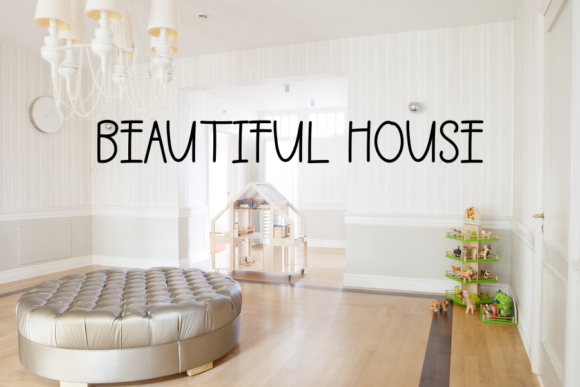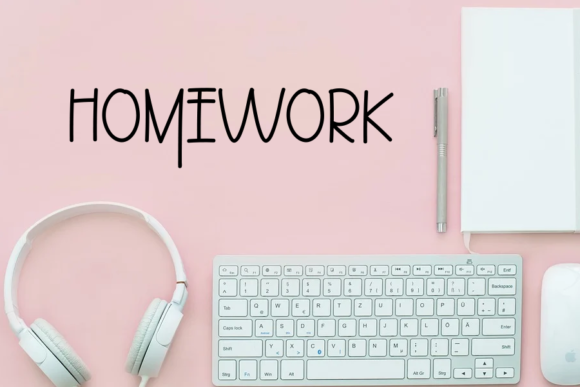
Home Alone Font
db-ku.com - Script & Handwritten -- Home Alone is a thin lettered and simple handwritten font that can be used for all chalkboard quotes or teaching material! Its authentic look and feel will add a personal and realistic feel to your designs.